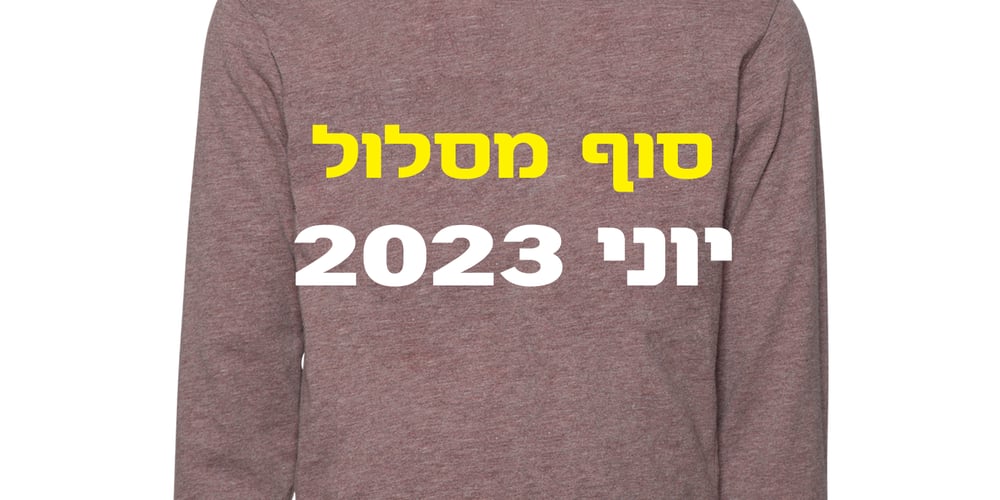
Kilshon MF
Kilshon MF font
Kilshon MF Font Family was designed by Zvika Rosenberg and published by Masterfont. Kilshon MF contains 3 styles and family package options. A 3 weights family, round geometric forms – ideal for headlines, signage.